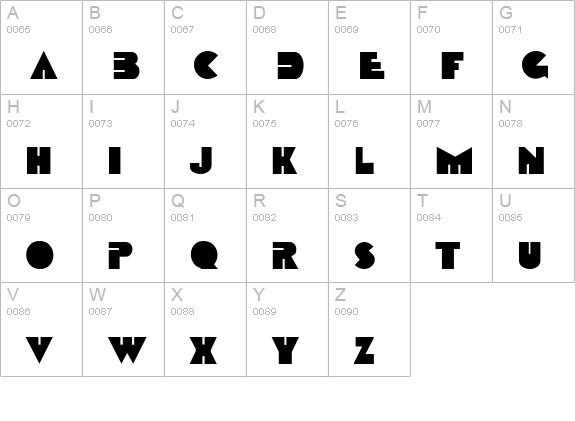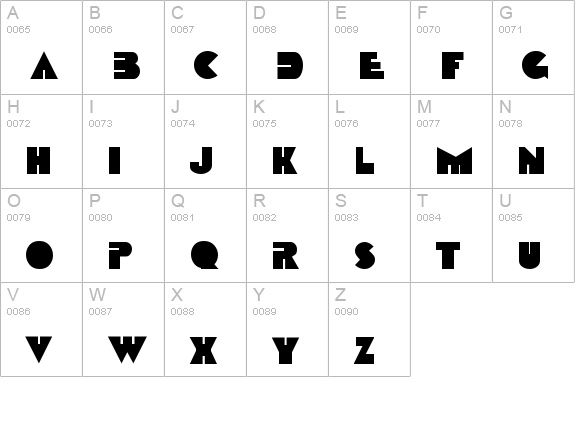
Devandra Regular Font Details
Devandra Regular is the standard, neutral variant in the Devandra typeface family \xE2\x80\x94 well suited to general body text, paragraphs, and standard typographic work.
Devandra Regular is a versatile and modern font that combines elegance with readability. With its clean lines and subtle curves, this typeface is perfect for a wide range of design projects, from branding to editorial work. The simplicity of Devandra Regular allows it to stand out while remaining effortlessly timeless. This font is available for free download at FontsMarket.com, making it accessible to designers and creatives looking to elevate their projects with a touch of sophistication. Whether you're working on a logo, website, or print materials, Devandra Regular is sure to add a touch of class and professionalism to your work. Download it today and see for yourself how this font can enhance your design projects.